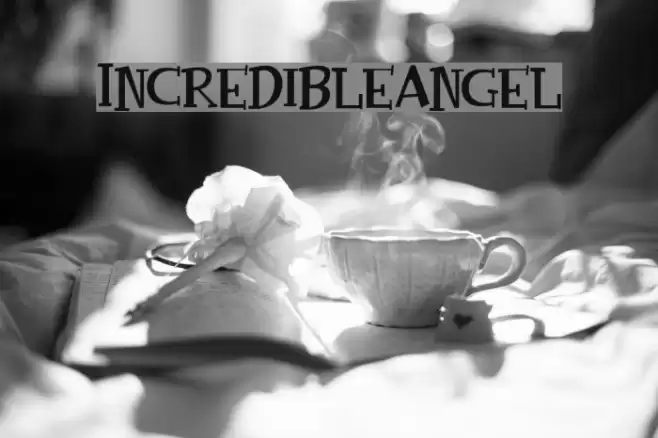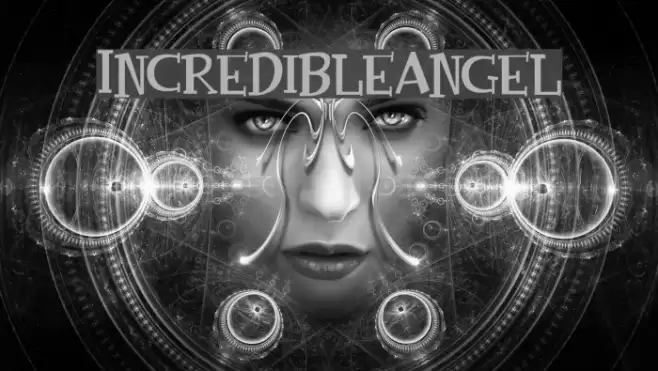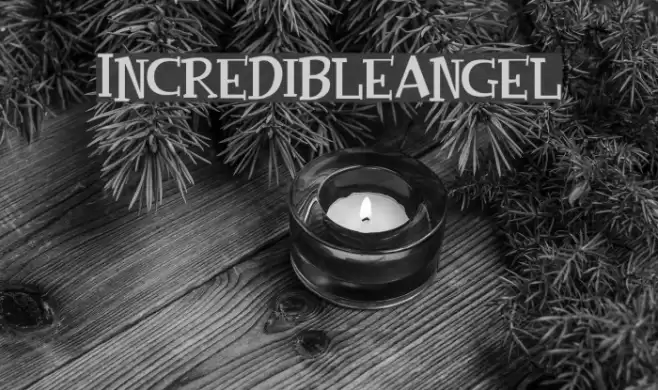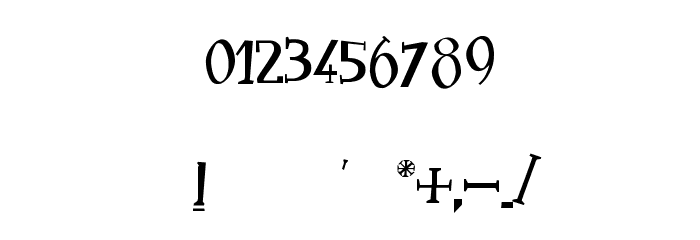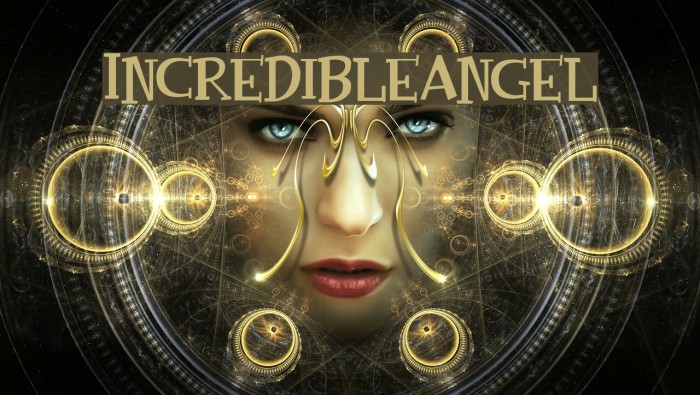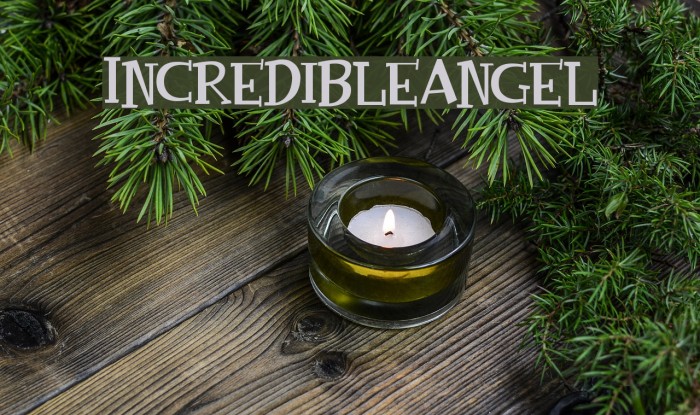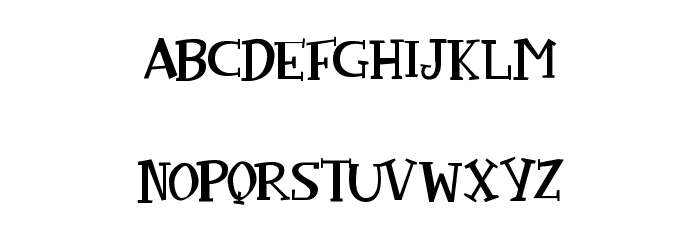
IncredibleAngel Font
IncredibleAngel Description
This font features a unique and artistic design, characterized by its decorative and slightly gothic style. The letters have a distinct flair with sharp, angular serifs and varying stroke widths that create a dynamic and eye-catching appearance. The uppercase and lowercase letters maintain a consistent style, while the numbers and special characters complement the overall aesthetic. The font's intricate details and bold presence make it suitable for projects that require a touch of elegance and creativity.
A decorative and gothic-style font with sharp serifs and dynamic strokes from Cartoon fonts.
- Proposed Projects: Ideal for use in branding, posters, book covers, and any design project that requires a bold and artistic touch.